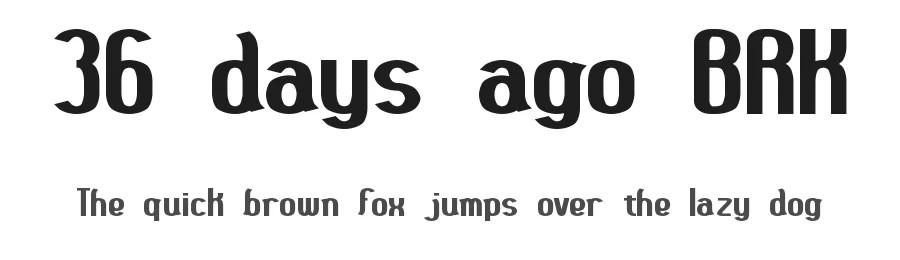
About Mooky Font
Mooky is a sans-serif font designed by Nuria Casanova. It includes 102 glyphs, a regular weight, TTF (TrueType) format, and 104 languages. Mooky is free to download; check the license details on this page before commercial use. Sans-serif fonts like Mooky work best for clean body text, user interfaces, branding, and modern layouts.
Mooky Font is a versatile sans-serif font that works for both headings and body text. Pair it with a contrasting serif or slab serif font to add visual interest and a clear distinction between titles and body copy.
Mooky Font
Mooky Font is a sans serif typeface by Nuria Casanova, ideal for logos, invitations, branding, and creative projects.